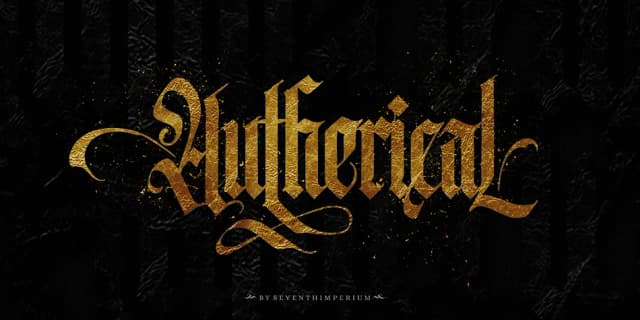
Picture a medieval wedding invitation suite with jagged letterforms that demand attention from the moment someone opens it. Screter, designed by Seventh Imperium, brings blackletter's gothic intensity to contemporary projects while maintaining sharp, cutting geometry that refuses to blend into the background or apologize for its weight. The typeface works beautifully for goth and metal band merchandise, vintage apothecary labels, ornate bookplate designs, and hand-lettered craft stationery where that historical gravitas needs to land hard and stay there.
The real strength lies in its extensive ligatures and OpenType features, which give you genuine room to adjust the personality of each individual project. A single font package provides multiple versions of letters and combinations, so you can dial the formality up or down depending on your specific context and audience. This flexibility makes it equally convincing on a luxury candle box as it is on a decorative poem poster, a DIY leather journal embossing template, or even a vintage-styled restaurant menu where the history matters.
Screter holds its visual authority even at large display sizes, where those sharp edges cut cleanly without muddying or becoming illegible. The weight distribution makes it readable in unexpected places, too, from book spines to tattoo reference sketches to monogram work. If you're after blackletter with genuine character and practical technical depth, grab it on Creative Fabrica.
- Ornate, Gothic
- Logos, Certificates
- medieval themes, band merch, and tattoo lettering
- a clean sans-serif for body text
Screter Font is a blackletter font that shines as a display or heading face. Pair it with a clean serif or sans-serif font for body text β the contrast creates a clear hierarchy while the two styles stay balanced and easy to read.
Screter Font